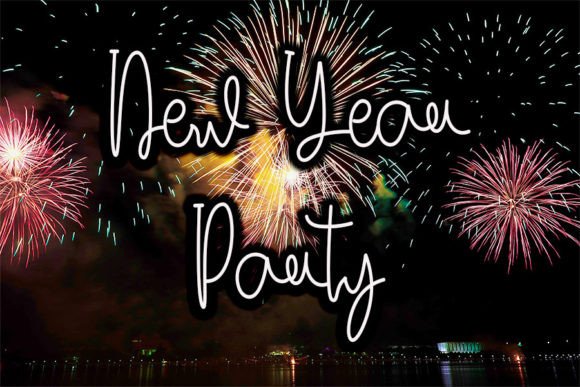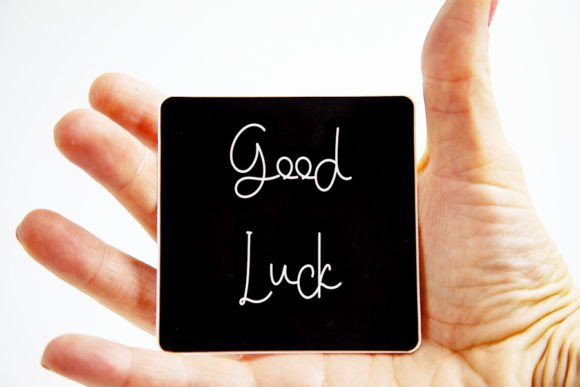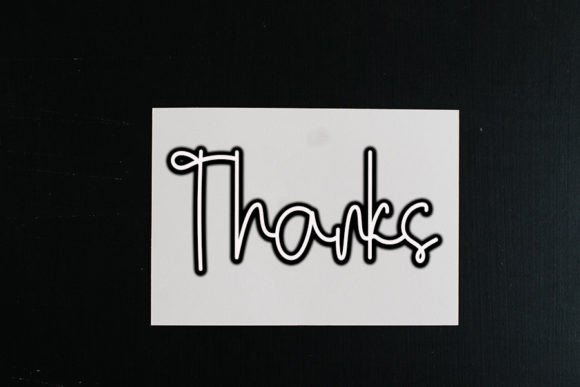
Introducing Happy Newyear Font: The Perfect Elegant Touch for Your Designs
As the clock strikes midnight on New Year’s Eve, we bid adieu to the old and welcome the new with open arms. What better way to usher in the fresh start than with a beautiful and elegant font that screams sophistication and style? Look no further than the Happy Newyear Font, a stunning handwritten font that is sure to take your designs to the next level.
A Font that Exudes Elegance and Timeless Style
Happy Newyear Font is a neat and beautiful handwritten font that boasts an elegant touch, making it perfect for a wide range of projects. Whether you’re a designer, crafter, or simply a DIY enthusiast, this font is sure to captivate your audience with its incredibly distinct and timeless style. The font’s unique charm lies in its ability to evoke a sense of luxury, sophistication, and refinement, making it an excellent choice for projects that require a touch of elegance.
Key Features of Happy Newyear Font
- Handwritten with love: Happy Newyear Font is a carefully crafted handwritten font that exudes warmth and personality.
- Elegant touch: The font’s elegant touch makes it perfect for projects that require a touch of sophistication and refinement.
- Distinct and timeless style: The font’s unique style is sure to make your designs stand out and leave a lasting impression.
- Perfect for various projects: Happy Newyear Font is versatile and can be used for a wide range of projects, from wedding invitations to branding and packaging.
Use Happy Newyear Font to Create Spectacular Designs
With Happy Newyear Font, the possibilities are endless. You can use it to create stunning designs for various projects, including:
- Wedding invitations and stationery: Add a touch of elegance and sophistication to your wedding invitations and stationery with Happy Newyear Font.
- Branding and packaging: Use the font to create luxurious and high-end branding and packaging for your products.
- Social media graphics: Create eye-catching social media graphics that stand out from the crowd with Happy Newyear Font.
- Signage and displays: Use the font to create beautiful signage and displays that showcase your brand’s personality and style.
Why Choose Happy Newyear Font?
With so many fonts available, why choose Happy Newyear Font? Here are just a few reasons why this font stands out from the rest:
- Unique and distinctive: Happy Newyear Font has a unique and distinctive style that sets it apart from other fonts.
- Elegant and sophisticated: The font’s elegant touch makes it perfect for projects that require a touch of sophistication and refinement.
- Easy to read and use: Despite its elegant style, Happy Newyear Font is easy to read and use, making it perfect for a wide range of projects.
In conclusion, Happy Newyear Font is a beautiful and elegant handwritten font that is perfect for designers, crafters, and DIY enthusiasts. With its incredibly distinct and timeless style, this font is sure to take your designs to the next level. Whether you’re looking to create stunning wedding invitations, luxurious branding and packaging, or eye-catching social media graphics, Happy Newyear Font is the perfect choice. So why wait? Fall in love with Happy Newyear Font and start creating spectacular designs today!